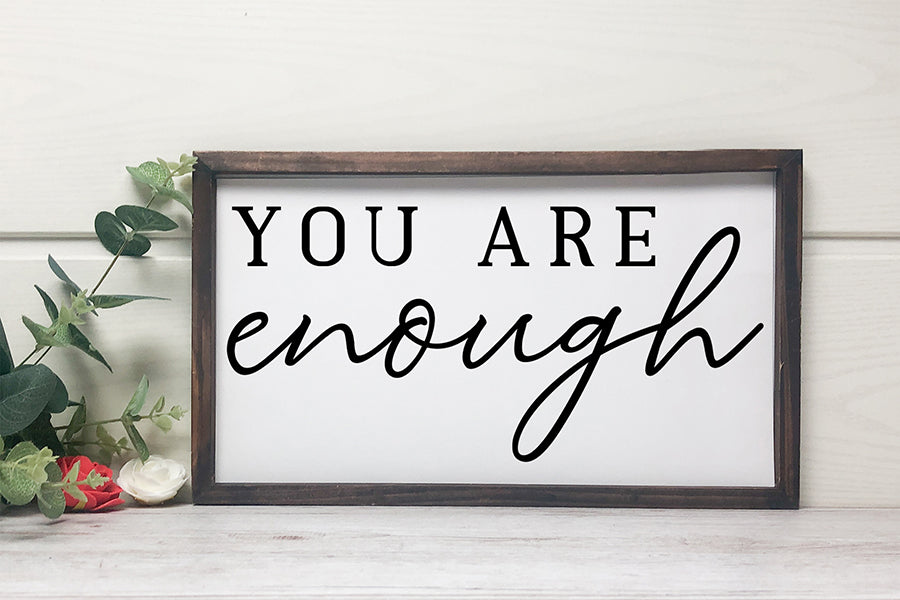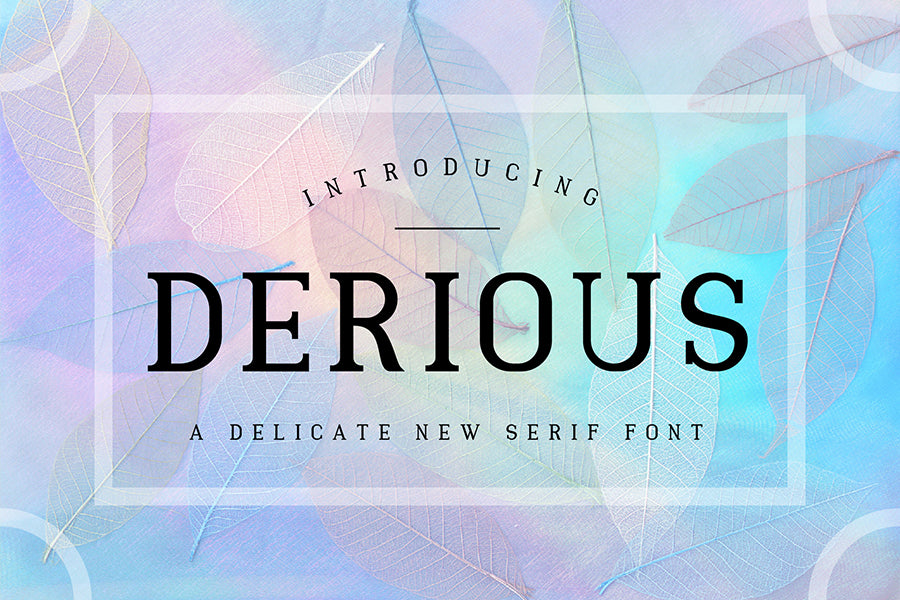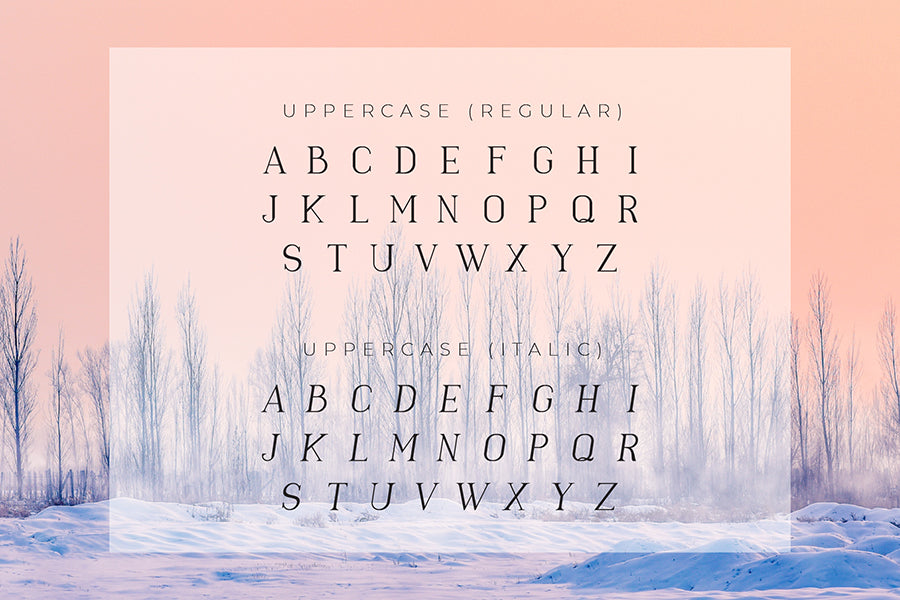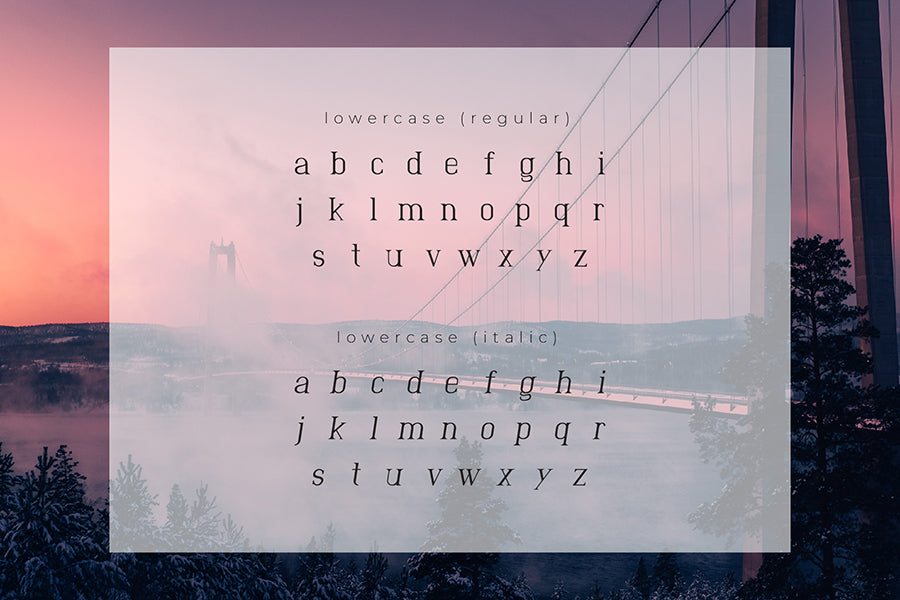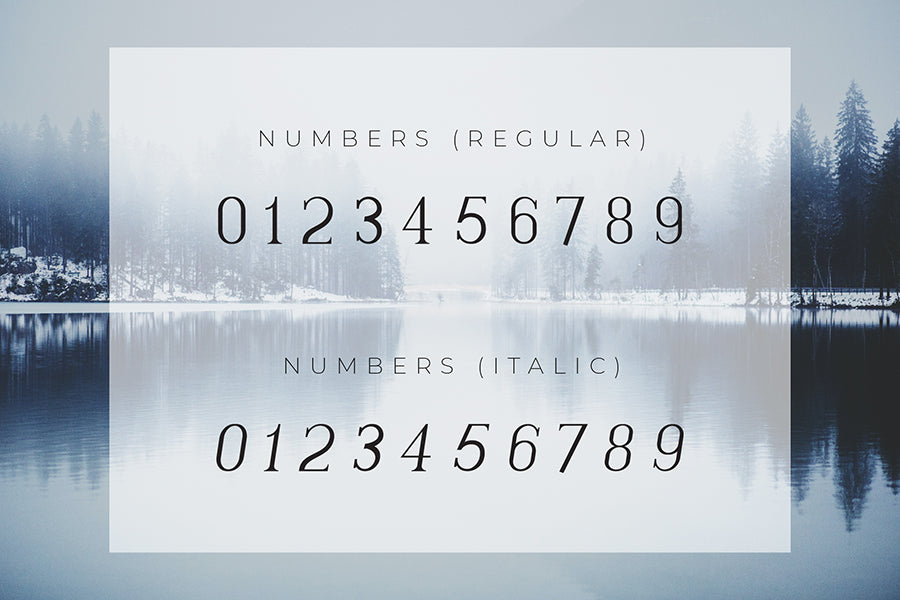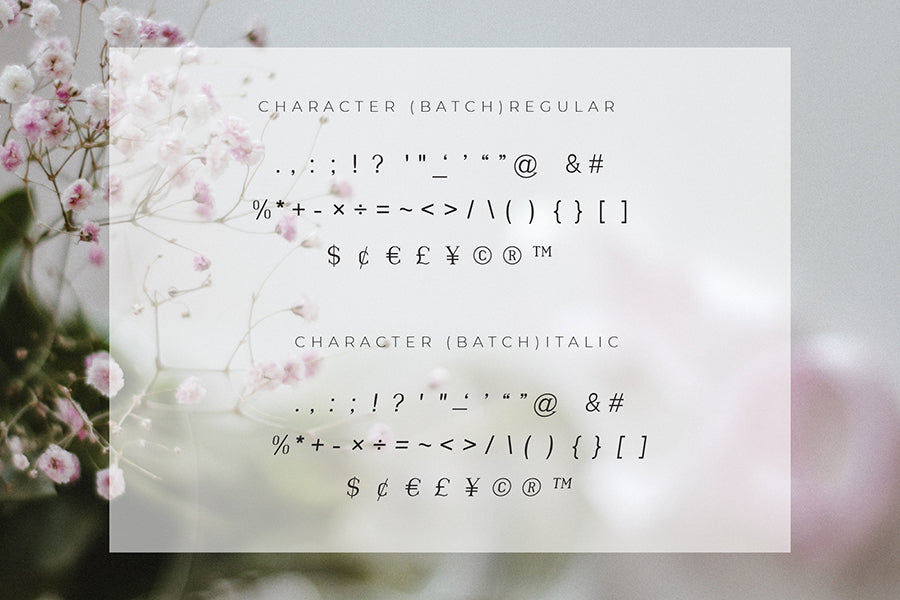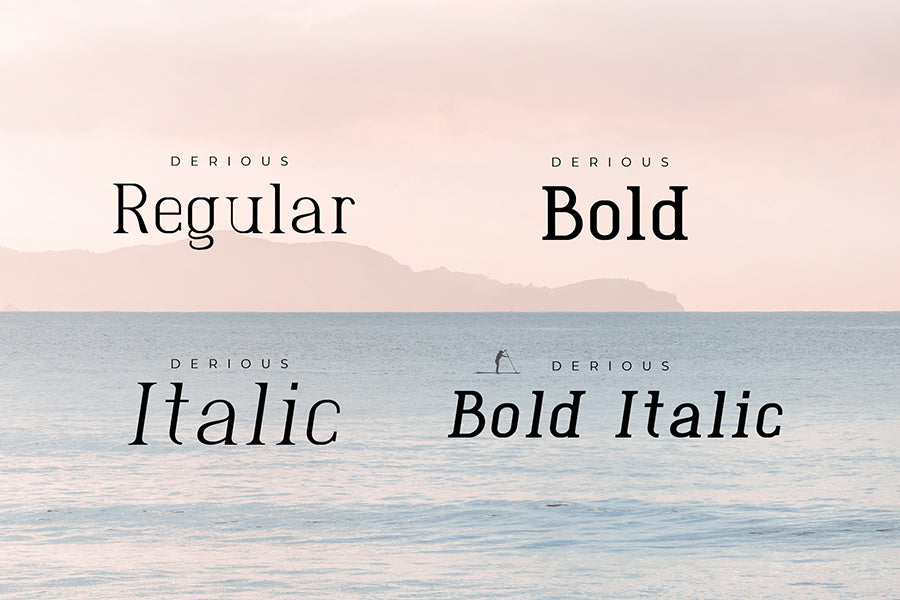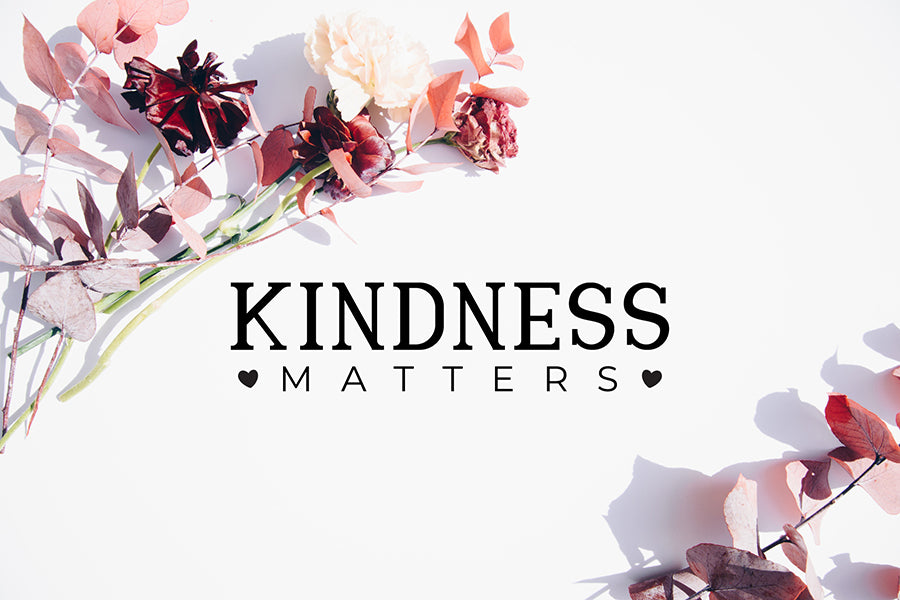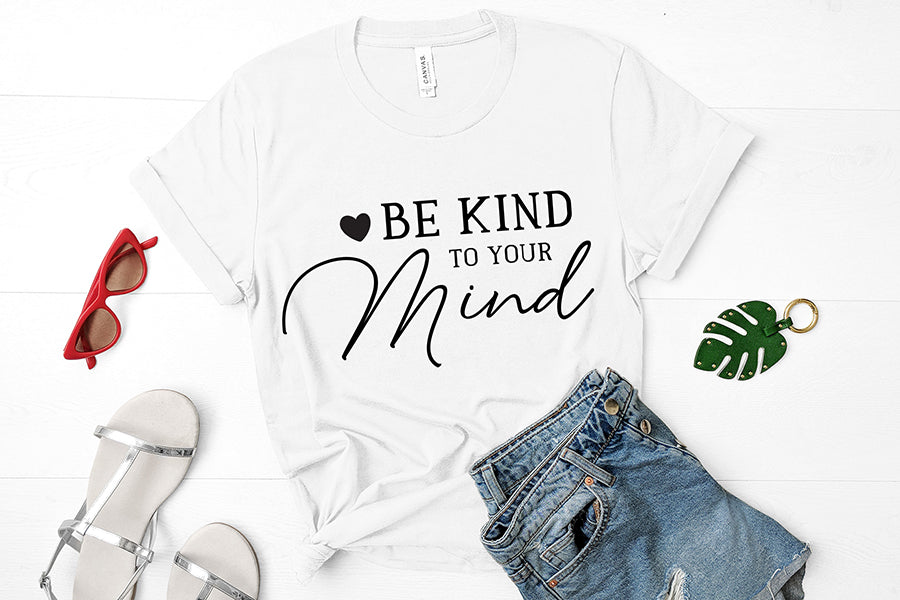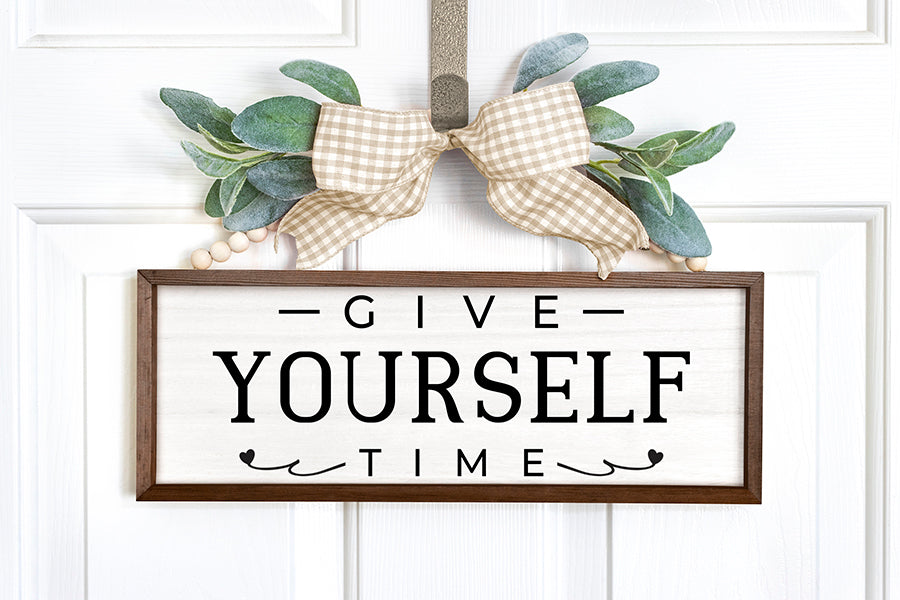
Derious - A Delicate New Serif Font
Derious is a modern and assertive serif font. It is beautiful, classy and cool and it will be suitable for quotes, shirts, mugs, cards, Cricut projects and much more.